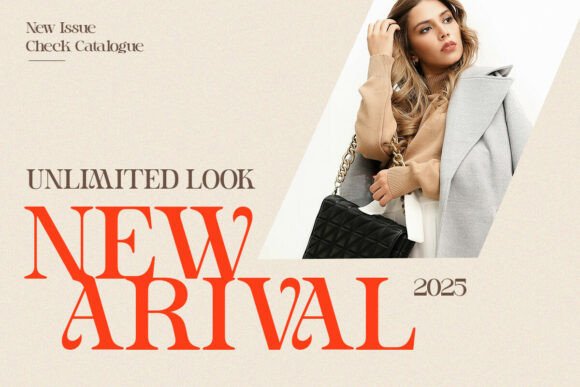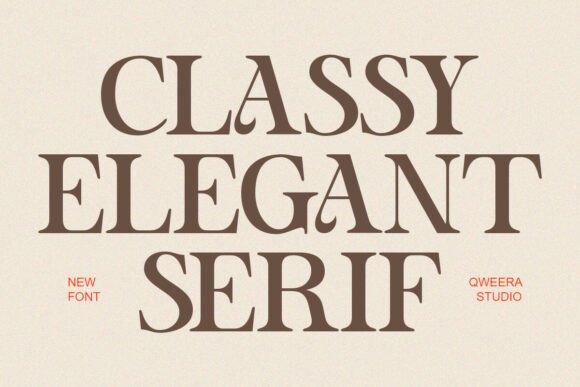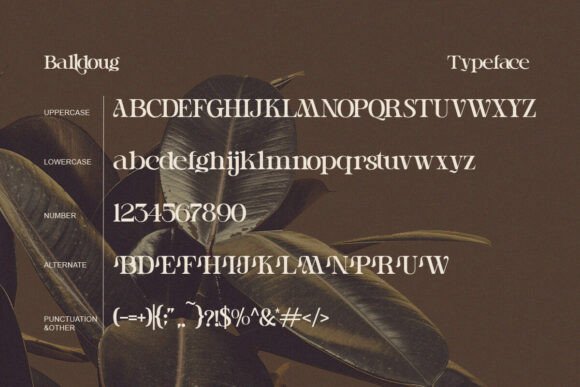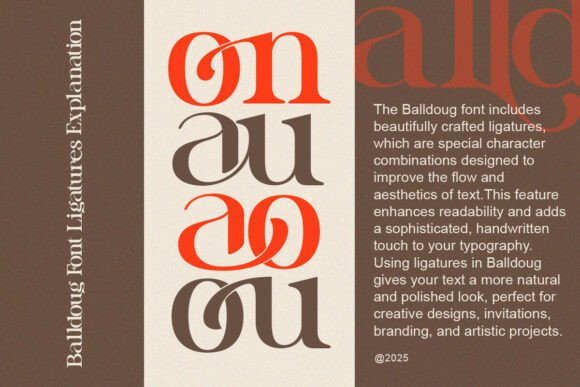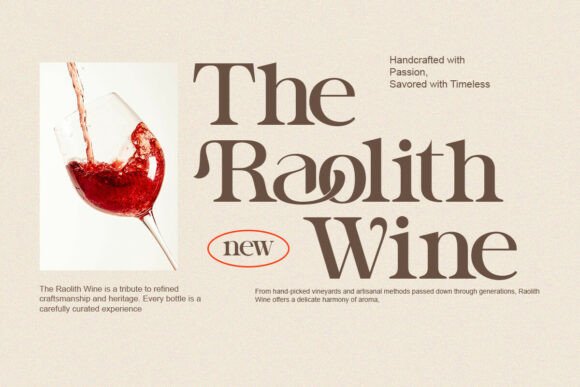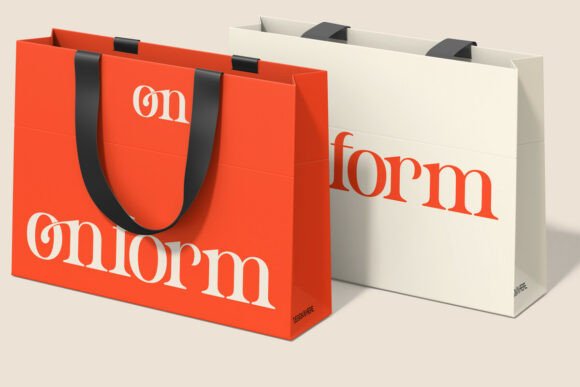
Introducing Balldoug Font: Elevate Your Designs with Timeless Elegance
In the world of typography, a font can make or break the aesthetic of a design project. For designers and crafters seeking a typeface that exudes sophistication, elegance, and a touch of modernity, Balldoug font is an exceptional choice. This modern serif font is meticulously crafted to deliver character and refinement through every letter, making it perfect for a wide range of creative applications.
The Essence of Balldoug Typeface
Balldoug typeface is distinguished by its elegant contrast, fluid curves, and artful ligatures. These features combine to create a visually stunning font that is both classic and contemporary. The subtle retro cues, stylish terminals, and unique ligature combinations give Balldoug a distinctive charm that sets it apart from other serif fonts.
- Elegant Contrast: Balldoug’s elegant contrast adds depth and sophistication to any design, making it ideal for projects that require a touch of luxury.
- Fluid Curves: The fluid curves of Balldoug ensure a smooth, harmonious look that enhances the readability and aesthetic appeal of the text.
- Artful Ligatures: The unique ligatures in Balldoug add an artistic flair to the font, allowing designers to create distinctive and memorable text.
- Subtle Retro Cues: The subtle retro elements in Balldoug provide a nod to classic typography while maintaining a modern feel.
- Stylish Terminals: The stylish terminals of Balldoug add a refined touch to the font, making it suitable for high-end design projects.
Ideal Applications for Balldoug Font
Balldoug’s versatility makes it an excellent choice for a variety of design projects, including:
- Branding & Logotype Projects: Use Balldoug to create a lasting impression with a sophisticated and elegant brand identity.
- Editorial Layouts & Cover Designs: Elevate your editorial designs with Balldoug’s refined and classic look.
- Packaging & Product Labels: Add a touch of luxury to your product packaging with Balldoug’s elegant typography.
- Fashion Campaigns & Lookbooks: Balldoug’s modern sensibility and timeless elegance make it perfect for fashion designs.
- Web Hero Banners & Blog Graphics: Enhance your web designs with Balldoug’s stylish and readable font.
- Elegant Wedding or Invitation Stationery: Create beautiful and sophisticated wedding or invitation designs with Balldoug.
PUA-Encoded for Easy Customization
Balldoug font is PUA-encoded, ensuring effortless access to all glyphs, swashes, and alternate characters. This feature allows designers to customize their creations with ease, making it simple to achieve the desired look for their projects.
Why Choose Balldoug Font?
For designers and crafters seeking a typeface that combines timeless elegance with a modern sensibility, Balldoug font is an exceptional choice. Its unique design characteristics, versatility, and ease of customization make it an ideal font for refined creative projects.
In conclusion, Balldoug font is a sophisticated and elegant typeface that can elevate any design project. Its modern serif design, combined with its artful ligatures and stylish terminals, make it perfect for designers and crafters seeking a refined and classic look. With its PUA-encoded feature, Balldoug offers effortless customization, making it an excellent choice for a wide range of creative applications.